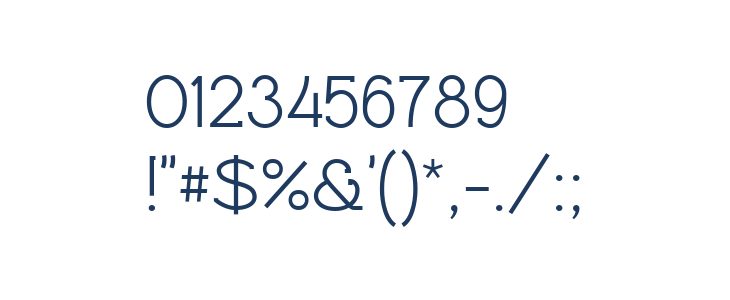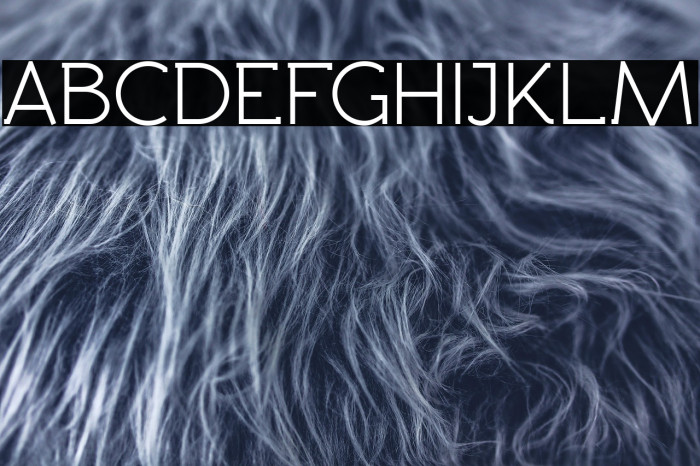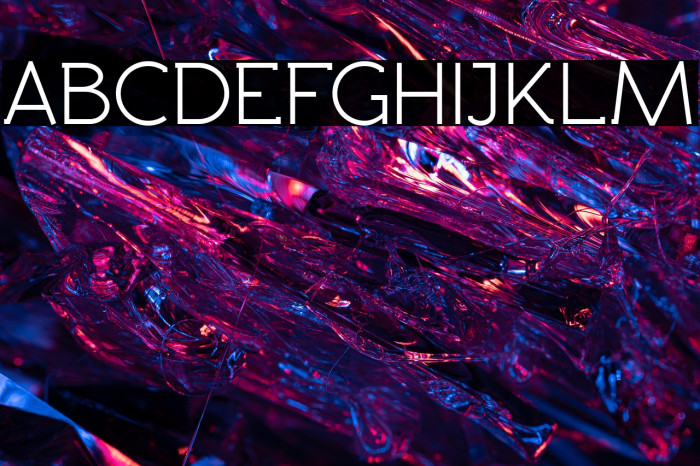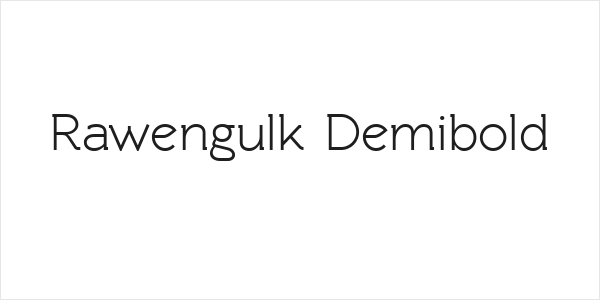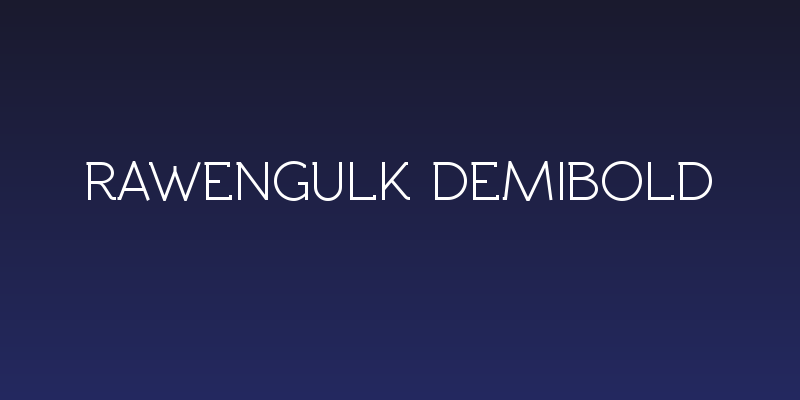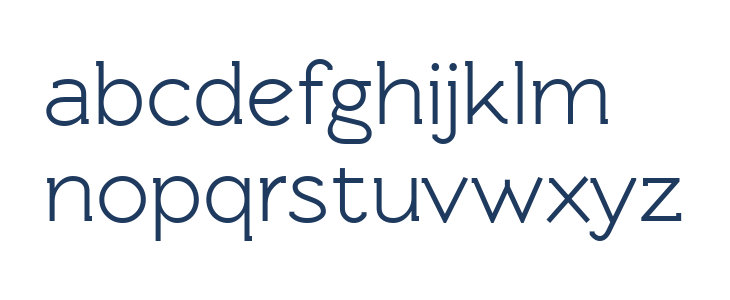
Rawengulk Demibold Font
Rawengulk Demibold Description
This font features a clean and modern sans-serif design with a geometric structure. The characters are well-balanced with a uniform stroke width, providing a harmonious and professional appearance. The uppercase letters are tall and slightly condensed, while the lowercase letters maintain a consistent height, enhancing readability. The numerals are clear and distinct, making them suitable for both text and numerical data. The special characters are designed to complement the overall style, ensuring versatility in various applications.